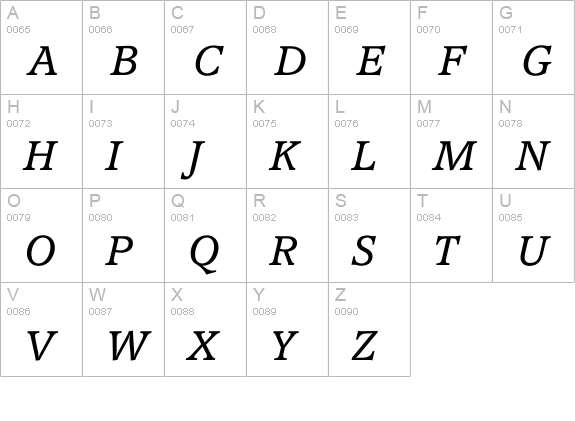
Iaccolade Light Font Details
Iaccolade Light is a refined, elegant variant in the Iaccolade typeface family \xE2\x80\x94 well suited to elegant body text, refined sub-headings, and luxury branding.
Introducing Iaccolade Light, a stunning font that effortlessly combines elegance and versatility. With its delicate strokes and graceful curves, this typeface is perfect for adding a touch of sophistication to any design project. Iaccolade Light offers a unique blend of modernity and classic charm, making it ideal for a wide range of applications. Whether you're designing a logo, creating a beautiful invitation, or crafting eye-catching headlines, this font will elevate your work to new heights. Not only does Iaccolade Light exude style and finesse, but it also offers incredible readability. Its clean and balanced letterforms ensure that your message is conveyed with clarity and impact, regardless of the size or medium. But what truly sets Iaccolade Light apart is its availability as a free download at FontsMarket.com. Yes, you read that right – this exceptional font is freely accessible, allowing you to enhance your projects without breaking the bank. So why wait? Discover the beauty and versatility of Iaccolade Light today. Download it for free at FontsMarket.com and unlock endless possibilities for your designs. Whether you're a professional graphic designer or an enthusiastic hobbyist, this font will undoubtedly become a valuable addition to your creative toolbox. Embrace the elegance of Iaccolade Light and let your designs shine with effortless grace.